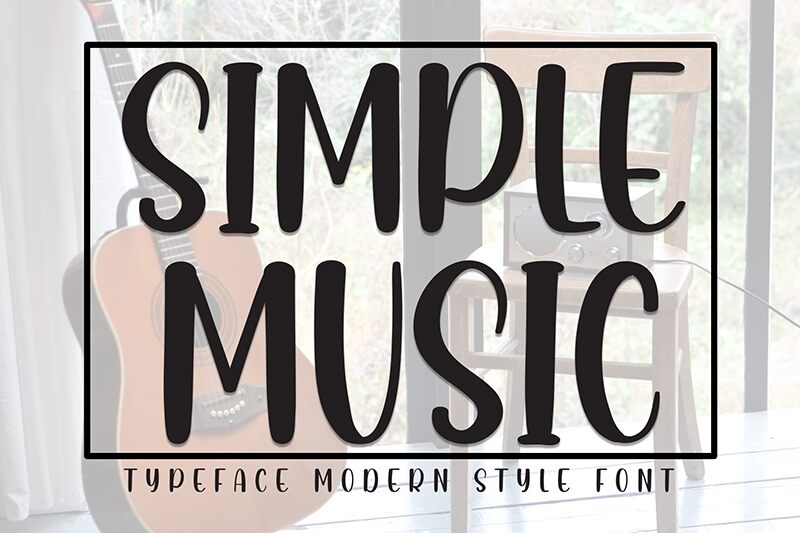
Simple Music
Simple Music font is a free brush font inspired by the rhythm, balance, and harmony of music. This artistic typeface features thick expressive strokes that stand out no matter what angle you look at it from. This comes in addition to the slightly rough edges which give it a vivid vintage-inspired appearance.
Designed and produced by Andi Moz, Simple Music is perfect for almost any creative job under the Sun. Some ideas that surely work include posters, logotypes, logos, advertisements, labels, social media posts & content, magazines headlines & covers books cover pages business cards packaging typography t-shirt design papercraft titles ads menu designs stamps watermarks invitations branding etc.